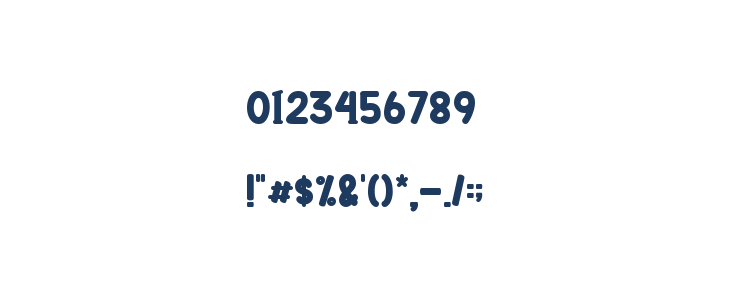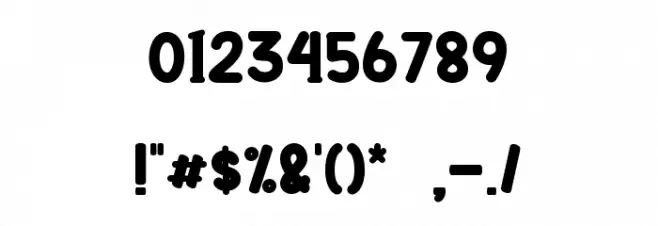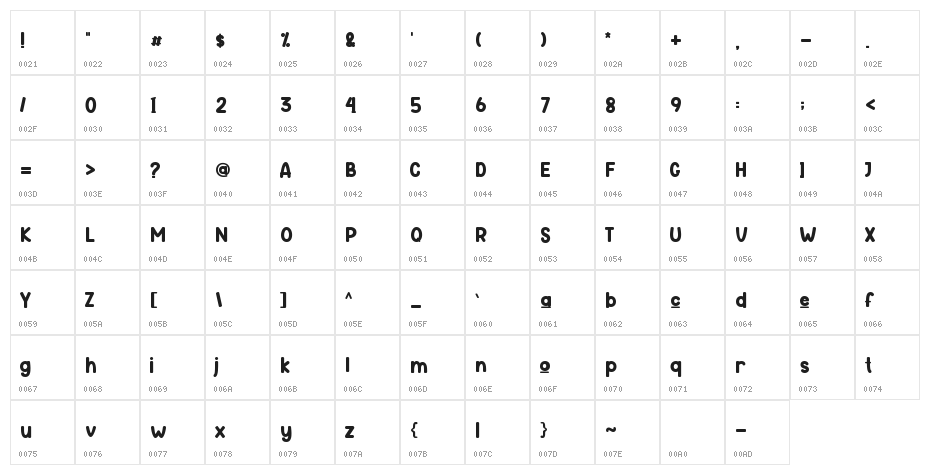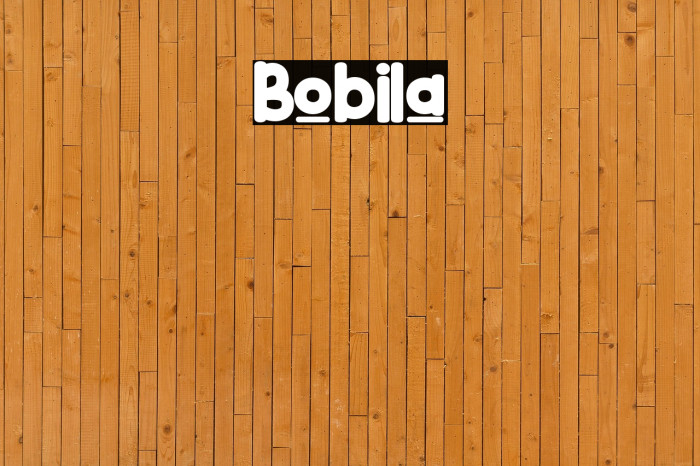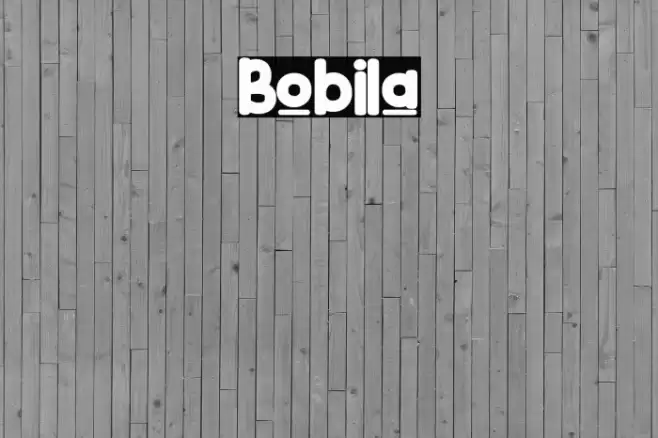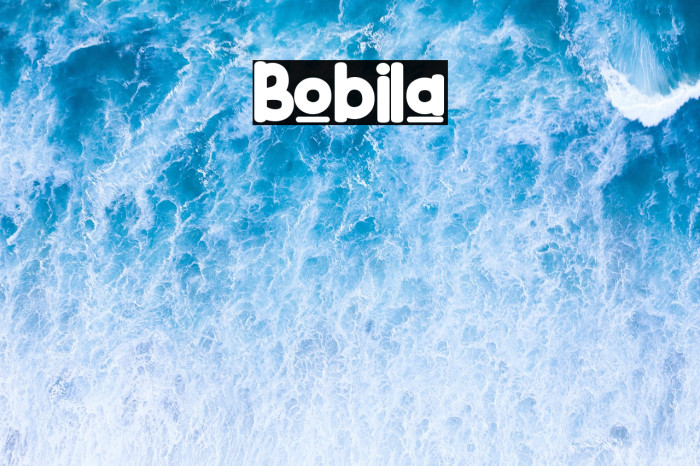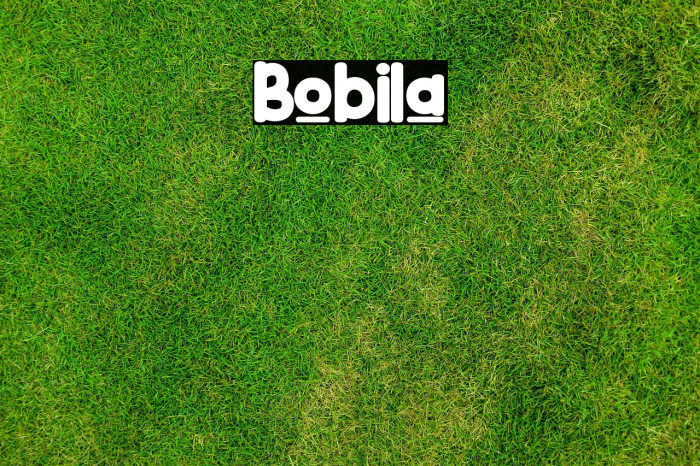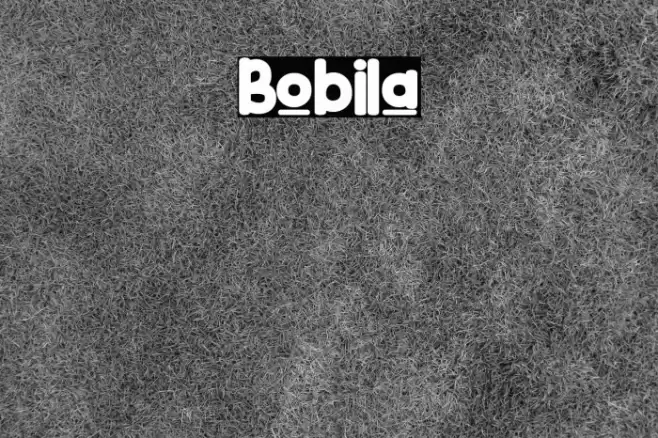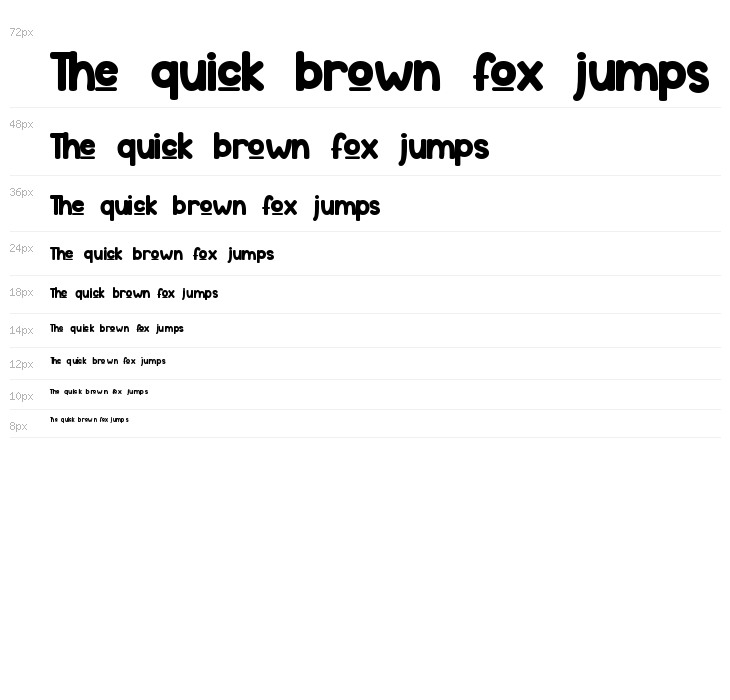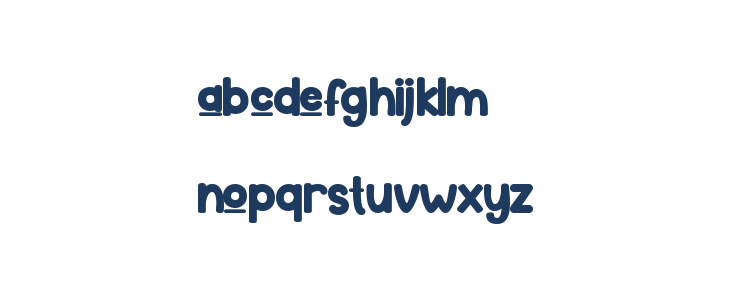
Bobila Font
Bobila Description
This playful and bold font features rounded edges and a bubbly appearance, giving it a friendly and approachable feel. The characters are thick and uniform, with a slight whimsical touch that adds personality. The uppercase and lowercase letters maintain a consistent style, with the lowercase letters slightly smaller but equally bold. Numbers and special characters follow the same design principles, ensuring a cohesive look across all text. The font's unique style makes it stand out, while its readability remains intact, making it suitable for various creative projects.